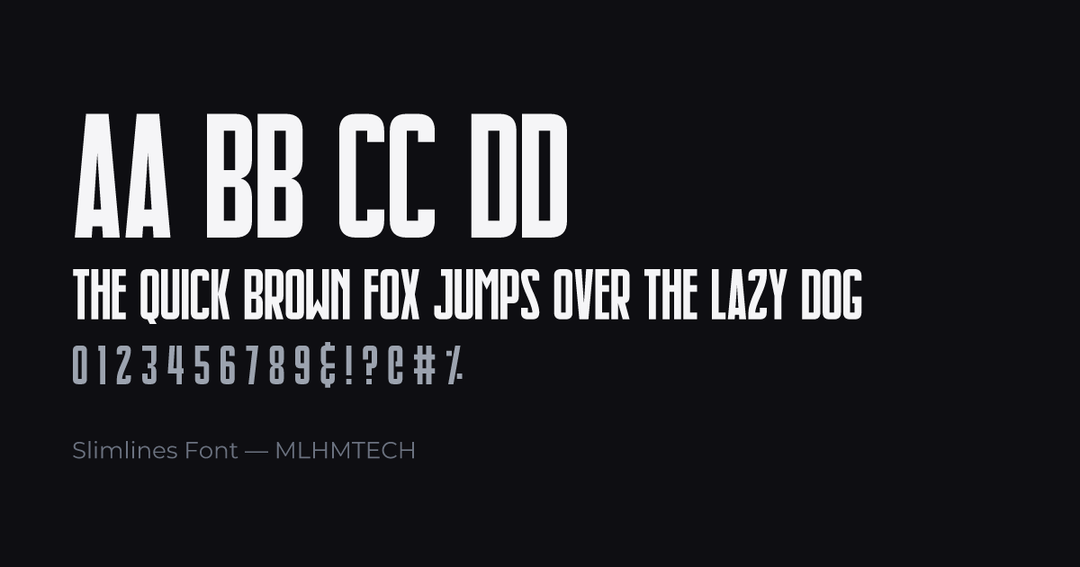
Slimlines Font
Slimlines is a sleek, modern sans-serif font with clean lines and an elegant feel. Ideal for logos, branding, and editorial design.
Slimlines is a contemporary sans-serif typeface characterized by its slim, uniform strokes and geometric shapes. Its minimalist design exudes sophistication and clarity, making it a versatile choice for a wide range of creative projects.
This font works beautifully for headlines, logos, and branding materials where a clean, modern aesthetic is desired. Its legibility at various sizes also makes it suitable for body text in digital and print applications.